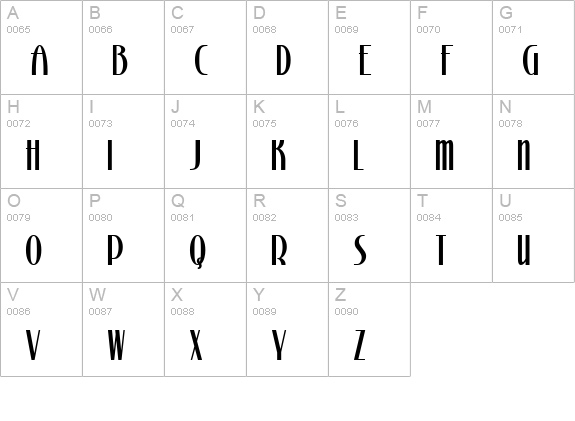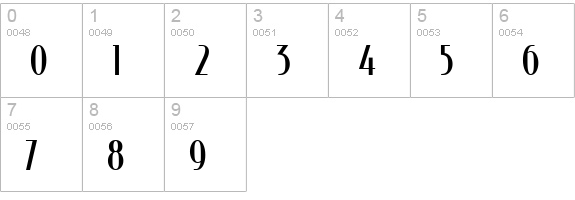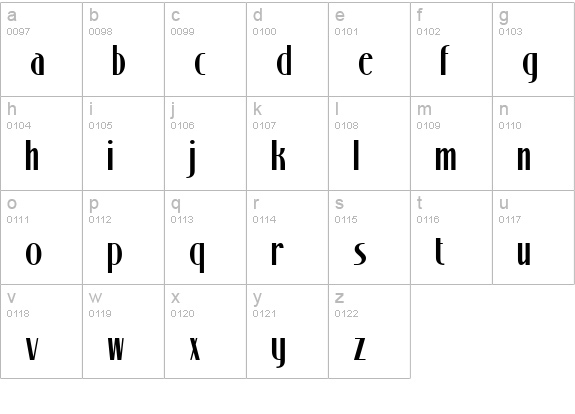
StonyIslandNF font is a stunning display font that exudes elegance and sophistication. With its intricate details and unique design, this font is perfect for adding a touch of charm to your projects. The smooth curves and sharp edges of StonyIslandNF create a harmonious balance, making it a versatile choice for various design purposes. Best of all, StonyIslandNF is available for free download at FontsMarket.com. This means you can easily access and use this beautiful font in your creative projects without any cost. Whether you're working on branding, packaging, posters, or any other design project, StonyIslandNF is sure to make a statement and elevate your work to the next level. Download it today and let your creativity shine with this exquisite font.